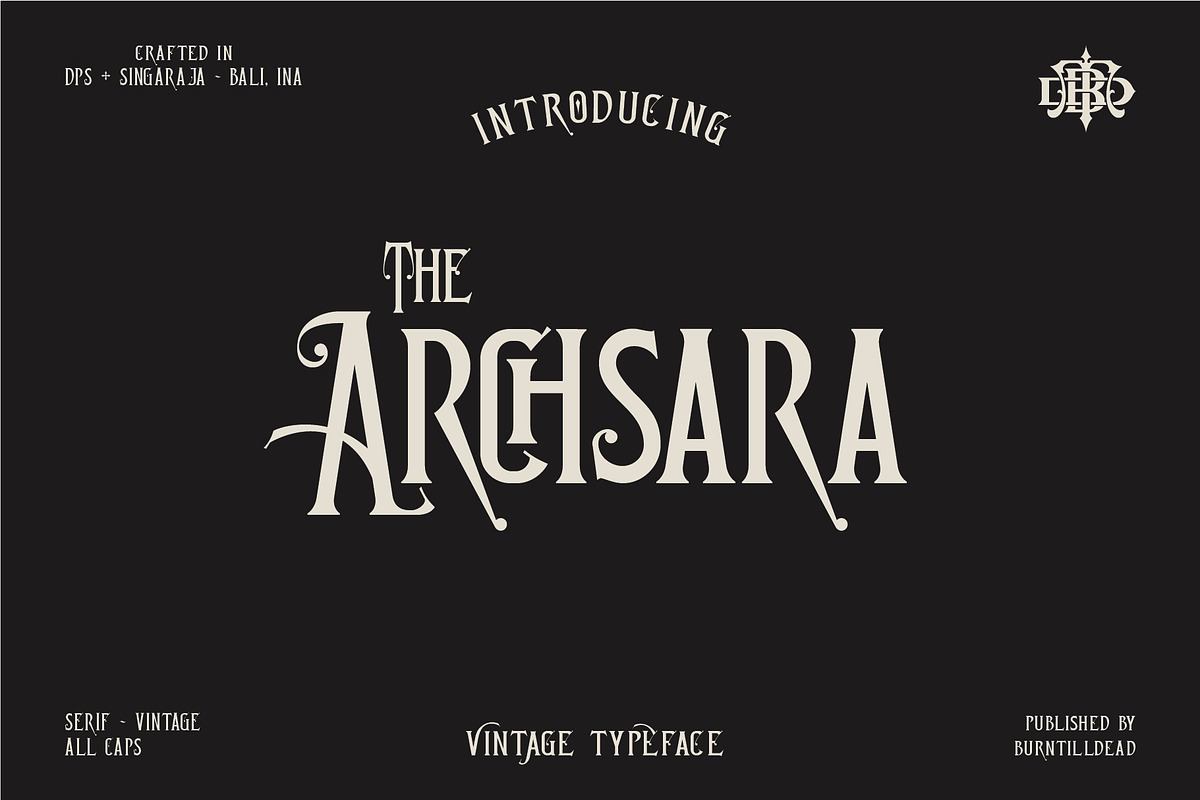
Archsara Font Free Download is a modern and elegant serif typeface with a distinctive, artistic touch. Featuring sharp lines, soft curves, and refined contrast, Archsara is perfect for fashion branding, magazine titles, luxury packaging, wedding invitations, and stylish editorial layouts.
Its high-end appearance makes it ideal for both statement headlines and sophisticated body text. With unique letterforms and beautiful ligatures, Archsara adds a refined, contemporary feel to any project that requires elegance and professionalism.